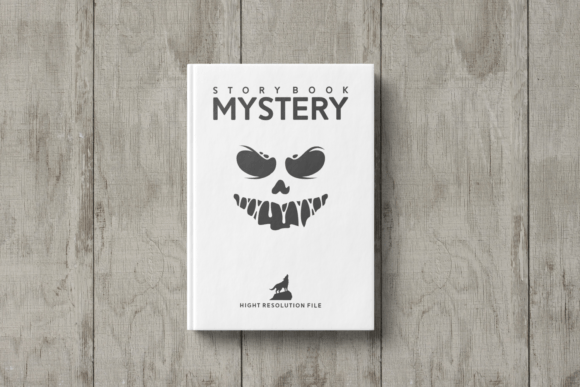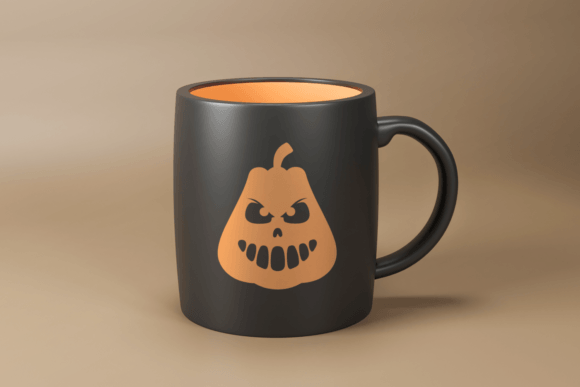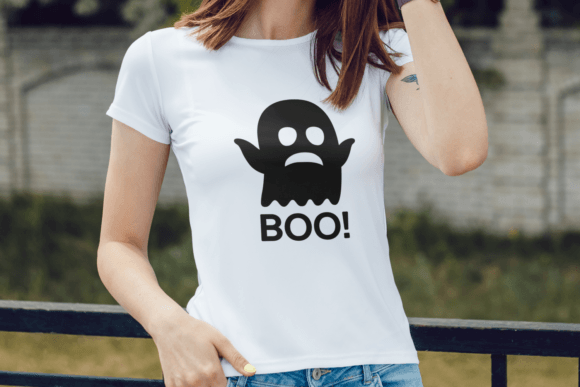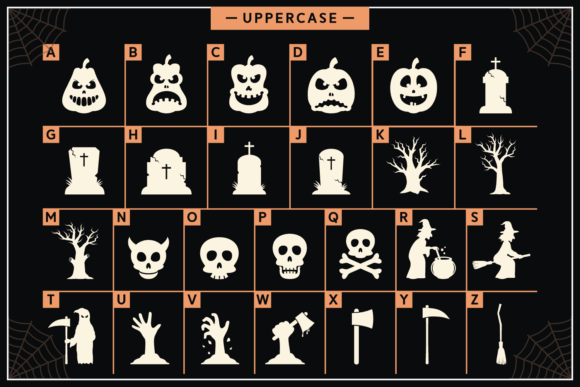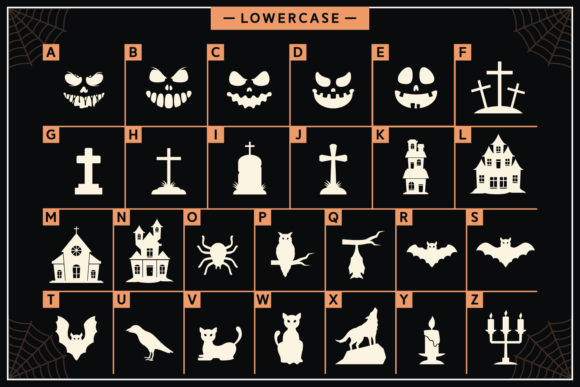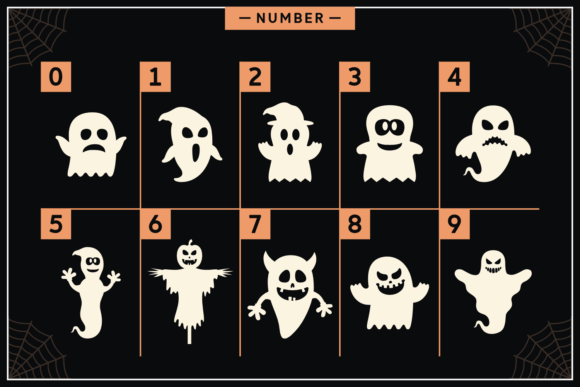
Dream Ghost Font: The Spooky yet Elegant Choice for Horror-Inspired Designs
Are you looking for a font that captures the essence of horror and Halloween? Do you want to create designs that send shivers down the spine? Look no further than the Dream Ghost Font, a dingbat symbols font that is perfect for any project that requires a touch of spookiness. In this article, we’ll dive into the world of Dream Ghost Font and explore its features, uses, and benefits for designers and crafters.
What is Dream Ghost Font?
Dream Ghost Font is a unique and creative font that is inspired by the horror Halloween style. It’s a dingbat symbols font, which means it’s made up of symbols, icons, and glyphs rather than traditional letters and numbers. This font is designed to add a touch of spookiness and elegance to any design project, making it perfect for Halloween-themed designs, horror-inspired art, and more.
Features of Dream Ghost Font
Dream Ghost Font comes with a range of features that make it a versatile and practical choice for designers and crafters. Some of its key features include:
- Horror-inspired design: Dream Ghost Font is designed to capture the essence of horror and Halloween, making it perfect for designs that require a spooky touch.
- Dingbat symbols: The font consists of symbols, icons, and glyphs, making it ideal for designs that require a unique and creative approach.
- Elegant and refined: Despite its horror inspiration, Dream Ghost Font has an elegant and refined feel, making it suitable for a wide range of design projects.
- High-quality design: The font is designed with high-quality graphics, ensuring that it looks sharp and clear even at large sizes.
Uses of Dream Ghost Font
Dream Ghost Font is a versatile font that can be used for a wide range of design projects. Here are some of the most popular uses of this font:
- Logotypes: Dream Ghost Font is perfect for creating logotypes that require a unique and memorable design.
- Posters: The font is ideal for creating eye-catching posters that require a touch of horror and Halloween spirit.
- Badges: Dream Ghost Font can be used to create custom badges that are perfect for horror-themed events and promotions.
- Book covers: The font is suitable for book covers that require a spooky and eye-catching design.
- T-shirt designs: Dream Ghost Font is perfect for creating custom t-shirt designs that require a unique and creative approach.
- Packaging: The font can be used for packaging designs that require a touch of horror and Halloween spirit.
Benefits of Using Dream Ghost Font
There are many benefits to using Dream Ghost Font for your design projects. Here are some of the most significant advantages:
- Unique and creative: Dream Ghost Font offers a unique and creative approach to design, making it perfect for projects that require a touch of horror and Halloween spirit.
- Versatile: The font is versatile and can be used for a wide range of design projects, from logotypes to packaging.
- Elegant and refined: Despite its horror inspiration, Dream Ghost Font has an elegant and refined feel, making it suitable for a wide range of design projects.
- High-quality design: The font is designed with high-quality graphics, ensuring that it looks sharp and clear even at large sizes.
| Font Name | Dream Ghost Font |
| Author | Dito (7NTypes) |
In conclusion, Dream Ghost Font is a unique and creative font that is perfect for designers and crafters who want to add a touch of horror and Halloween spirit to their design projects. With its horror-inspired design, dingbat symbols, and elegant feel, this font is versatile and can be used for a wide range of design projects. Whether you’re creating logotypes, posters, badges, book covers, t-shirt designs, or packaging, Dream Ghost Font is the perfect choice. So why not give it a try and see how it can elevate your designs to the next level?